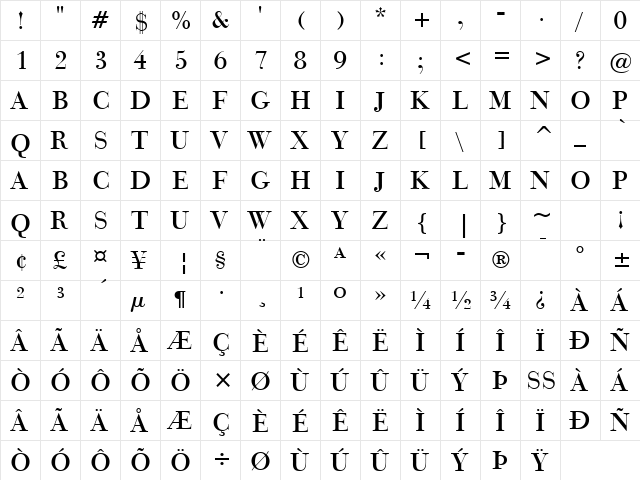
BauerBodni Titl BT Titling Font Preview
BauerBodni Titl BT Titling
BauerBodni Titl BT Titling Font Details
| Style | Titling |
Design Context for BauerBodni Titl BT Typeface
BauerBodni Titl BT offers clean, dependable letterforms without strong stylistic allegiance, making it a practical choice for designers who need flexibility.